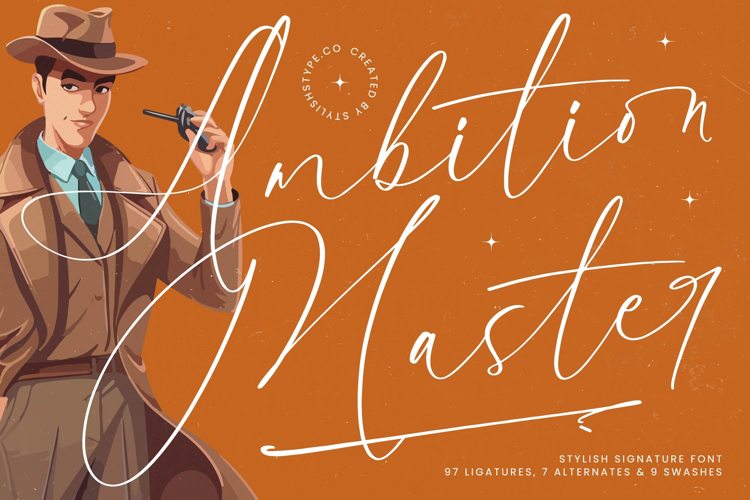
Ambition Master - Stylish Signature Font
Ambition Master
Ambition Master Italic
Elevate your creative projects to a new level of sophistication with the Ambition Master Signature Font. This premium script typeface embodies professional elegance through its fluid strokes and organic curves, capturing the essence of bespoke calligraphy. Designed to provide a high-end, handwritten aesthetic, it effortlessly balances readability with artistic flair, ensuring your message is delivered with both clarity and style.
Designed for professional excellence and global reach, this typeface offers an impressive library of 97 ligatures and 9 expressive swashes. These features allow designers to create unique, customized typography that mirrors the natural flow of human handwriting. With its extensive multilingual support, Ambition Master Signature Font adapts seamlessly across global markets, making it incredibly versatile for international projects and diverse branding needs.
This typeface is the perfect choice for high-end industries seeking a luxury visual identity. Ambition Master Signature Font is perfect for luxury branding, packaging design, and editorial layouts, where a touch of class is essential. Whether applied to wedding invitations, high-fashion logos, or lifestyle advertising, this font adds an undeniable layer of prestige and authenticity to every creative composition.